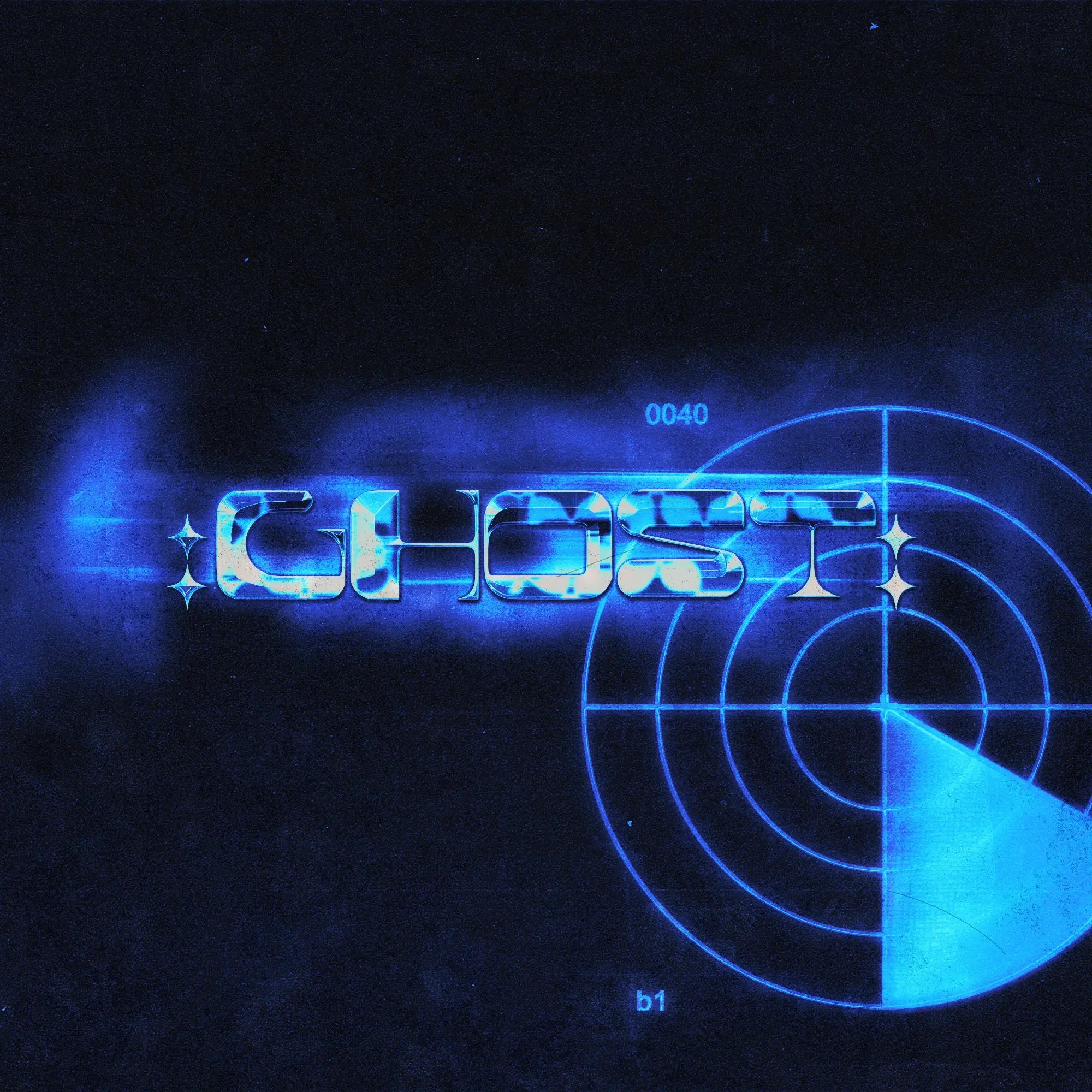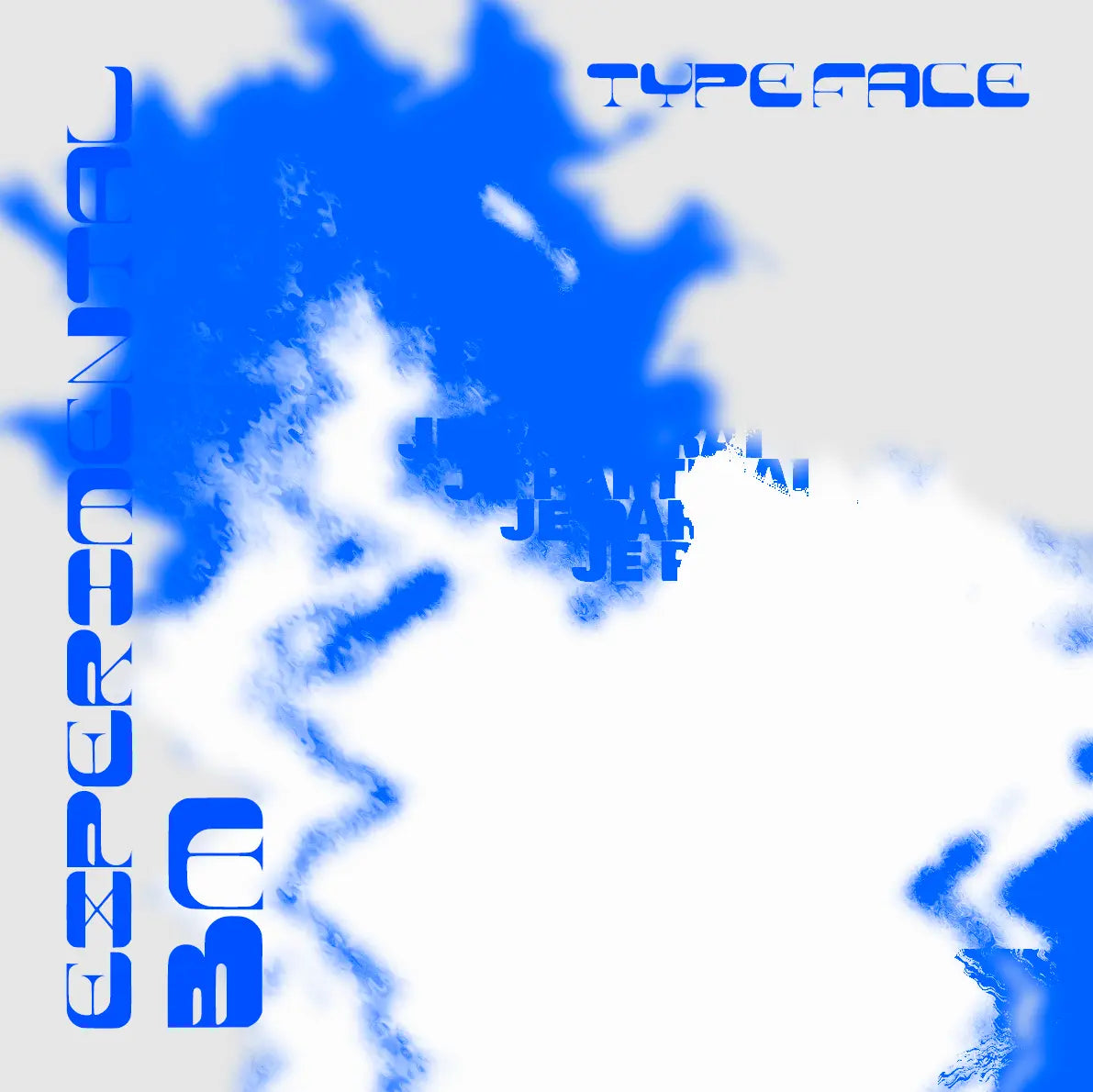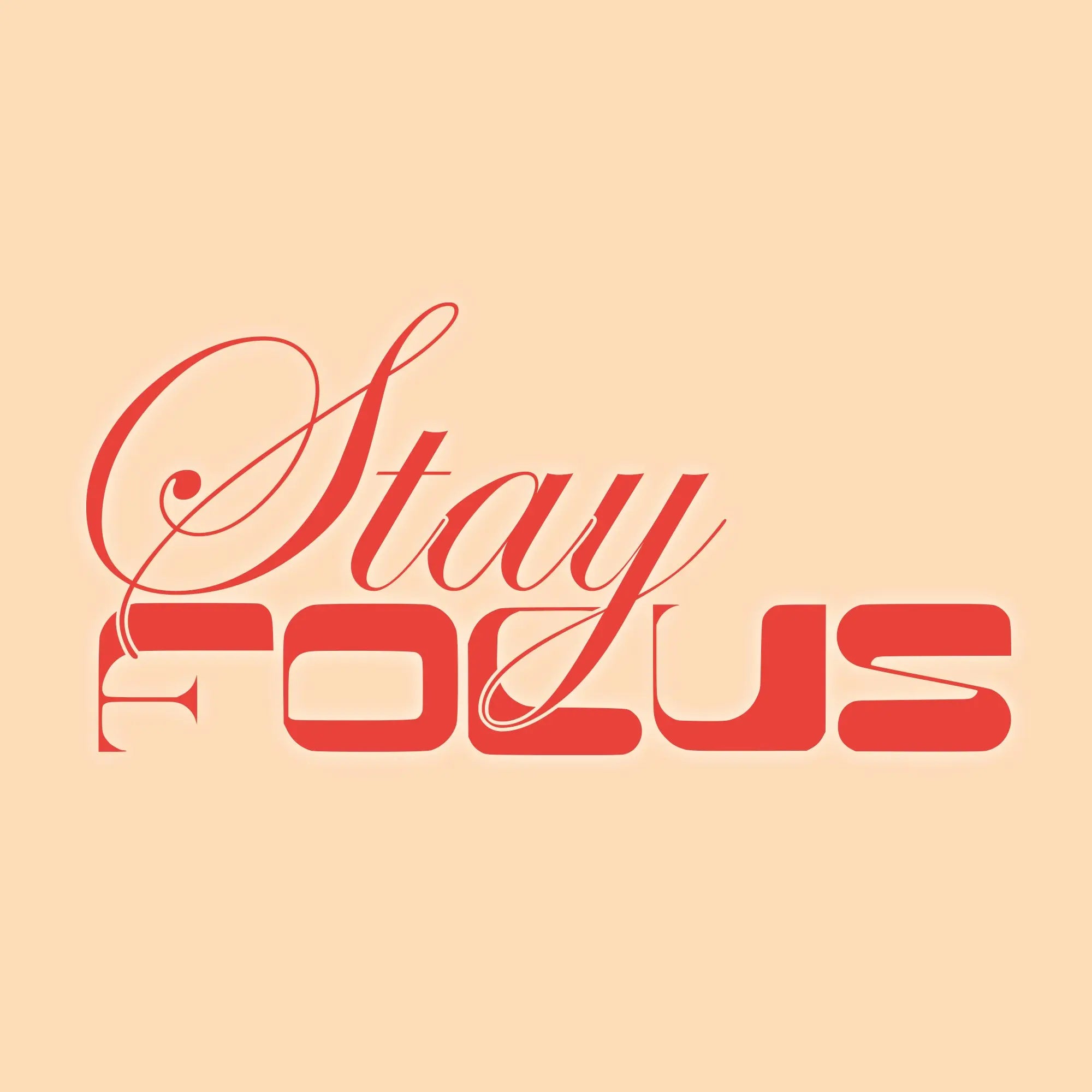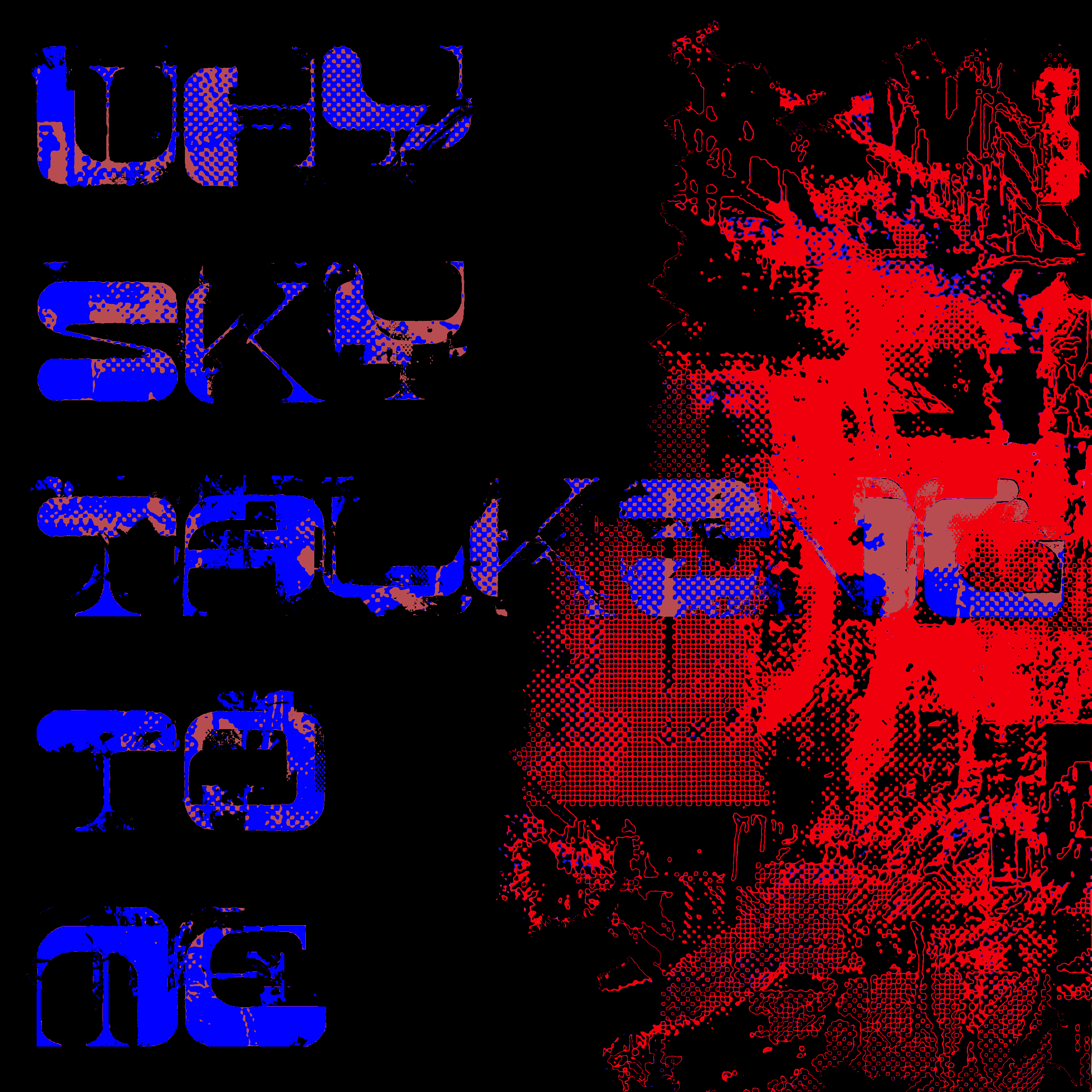
“Experimental BM” is an avant-garde serif typography, inspired by the dynamism of the acid and chromatic Japanese style.
Its range of weights, from elegantly clean to boldly thick outlines, makes it an exceptionally versatile font, suitable for a wide variety of graphic applications.
This font is designed for professionals looking for a distinct visual signature.
Whether for brand identities, signage or prestigious publications, “Experimental BM” brings a touch of sophistication to each layout.